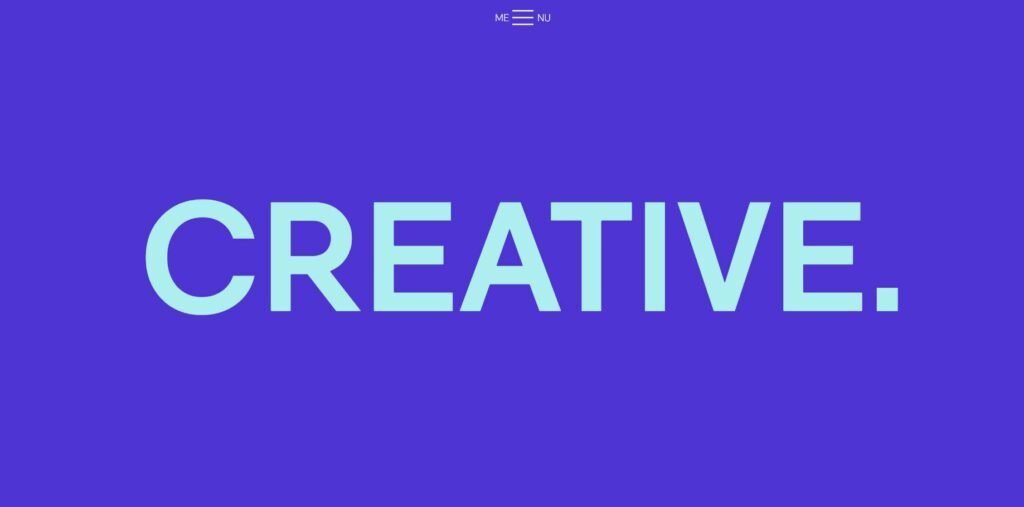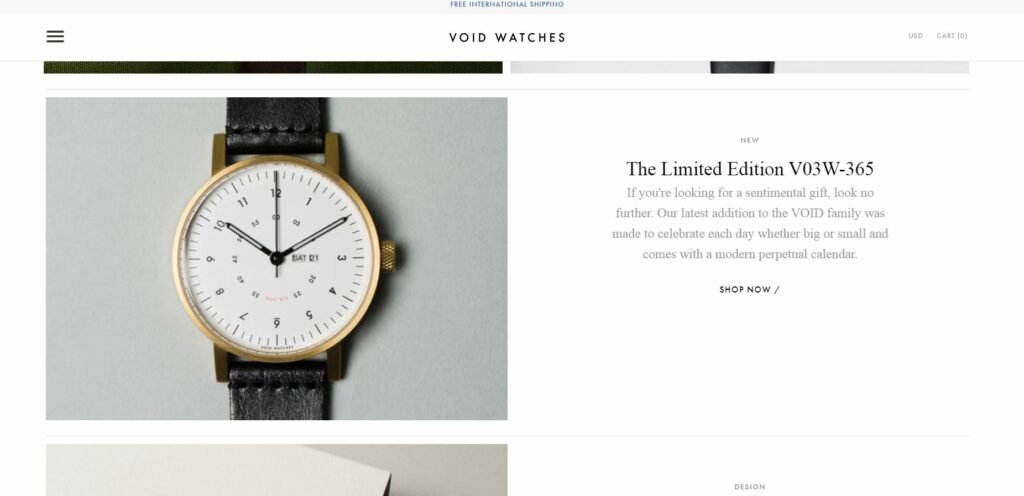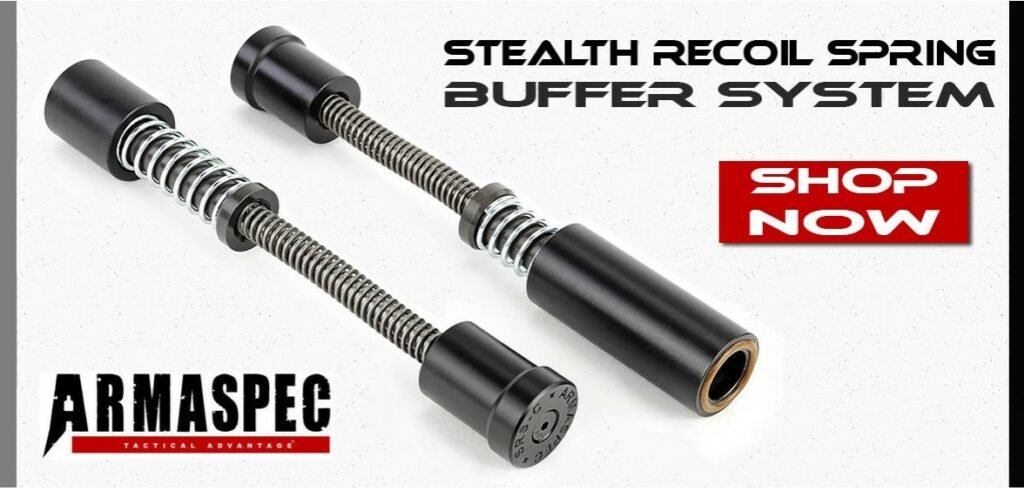
What Makes a Good Font?
Typography can affect everything from capturing attention to ease of use. These guidelines can help you choose the right font for your next design.
It’s not enough to make a statement with words alone. You must also use bold visuals that steal your audience’s attention. That’s exactly why UX and modern design are such integral parts of web development these days.
But it’s not just the visual elements, like photos, accents and icons, that make a difference — typography is just as important. If you choose an ugly or hard-to-read font, your audience is going to lose interest fast.
We’re going to take a look at a handful of guidelines and tips that can help you choose the right font for your next design.
1. Stick with Typefaces That Match Your Personality
Quite a few designers feel every new design should have a unique typeface. This is somewhat true. You don’t want to choose a typeface that goes against the style, theme and colors you have set up.
However, the typefaces you use should follow the same theme, as well. Think of your collective works as something of a modern signature. By sticking with six to ten typefaces total — even fewer is better — the fonts you use can make you instantly recognizable. Plus, fewer fonts mean you can build a more intimate relationship with each style, so you know what suits a particular element best.
Graphic designer Ade Mills' choice of typeface
The trick is initially choosing versatile fonts that match a variety of styles and themes. Graphic designer, Ade Mills, did an excellent job choosing a typeface that matches her personality, sense of style and site theme.
2. Weight, or No Weight?
Quite a few fonts are only available in one weight, which sets strict limitations on how your text can be displayed. We recommend staying away from these font styles if you can help it. Some of the more common offenders include Roman capitals, as well as stencil and pixel styles.
Outside of choosing one of the aforementioned fonts, you’ll want to double-check the weight types before settling on one. This is especially true if you’re designing for a content-heavy or collaborative site. You may not be using certain weight types, but others in the community will. The final product can end up looking shoddy if you don’t take weight into consideration when choosing.
Ditto a eyewear company's website with balanced weight of fonts
Pay attention to how the eyewear company Ditto balances the weight of fonts on their landing page. The larger titles pull just enough attention away from the visuals, so you know what’s happening, but not so much that it takes away from the overall design. The subtitle also uses a lighter weight, but still stands out.
3. Application Matters
Are you deploying a print or web font? Are you using a combination of them? It matters, and it may completely alter how your design turns out.
You see, web fonts are designed from the ground up for screen reading. They tend to be sharper, more vivid and easier to read on a computer or display, such as a mobile phone. Often, they employ sans serif, although there are serif variants.
Print fonts, on the other hand, were designed for use with traditional print materials such as paper, cardstock and more. They often follow a more classic appearance and tend to be a bit heavier in weight, with more curves and wider spacing. Some look great on modern displays in their native form, while others need a few tweaks.
Pay attention to this trait when choosing a font and stick with something that matches the medium you’re using.
4. Mind the Outliers
Typically, when you choose a font, you pay the most attention to the standard content — letters, numerals and some of the more common symbols. You should never forget to preview and consider the outliers, too. These can include anything you wouldn’t normally use, like symbols, ligatures, wingdings and more.
More importantly, some fonts are incomplete in this regard and do not include all the necessary elements. You’ll be kicking yourself if you choose a font that doesn’t have something you need, only to discover it later.
5. What’s the Mood of Your Design?
Mood and tone are exceptionally important when putting your design together. You want everything to be seamless, and you want your visuals to evoke the right emotions. Are you going for a silly, more comedic approach, or do you want your design to be professional?
Some of the more gimmicky fonts can look great for upbeat, personal designs, but when you get into the enterprise and business territory, it’s better to stick with something bland.
Wing Tactical uses strong, modern font
Take a look at how Wing Tactical has used their strong, modern font to provide a more authoritative voice to their site.
6. Consider the Audience